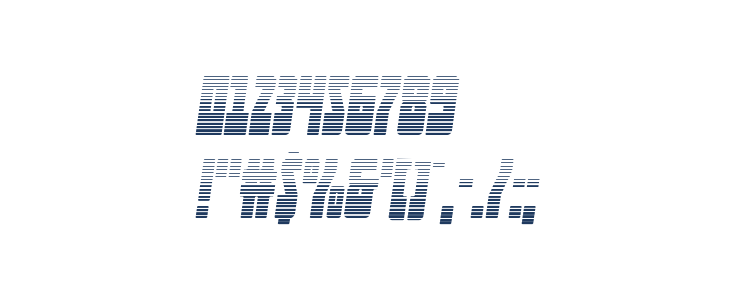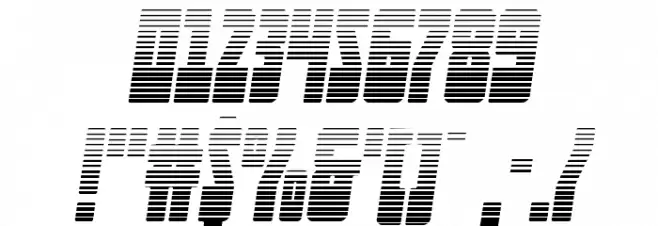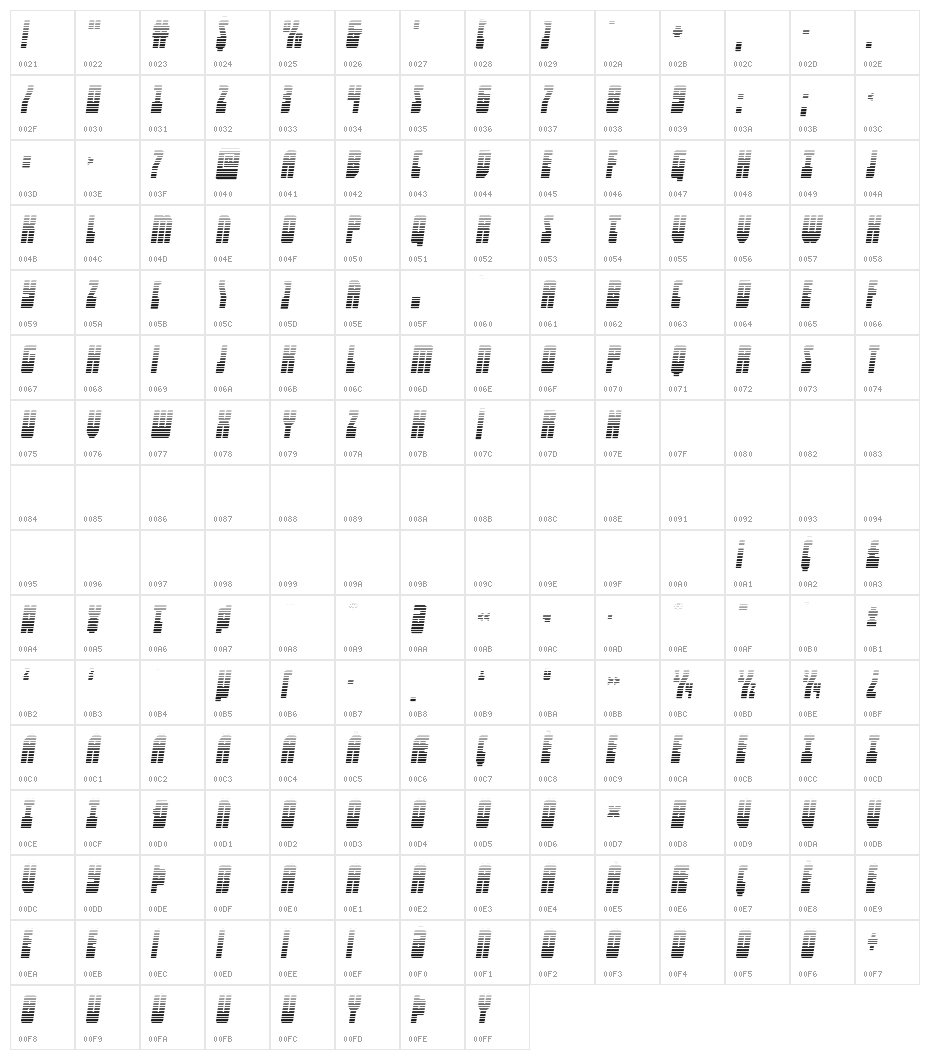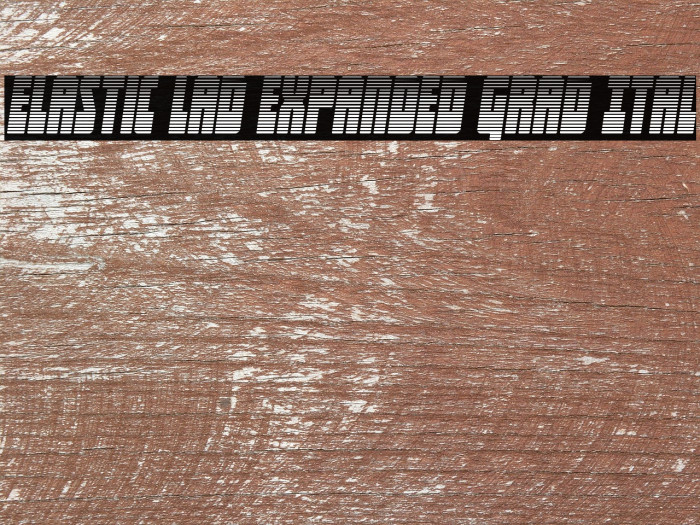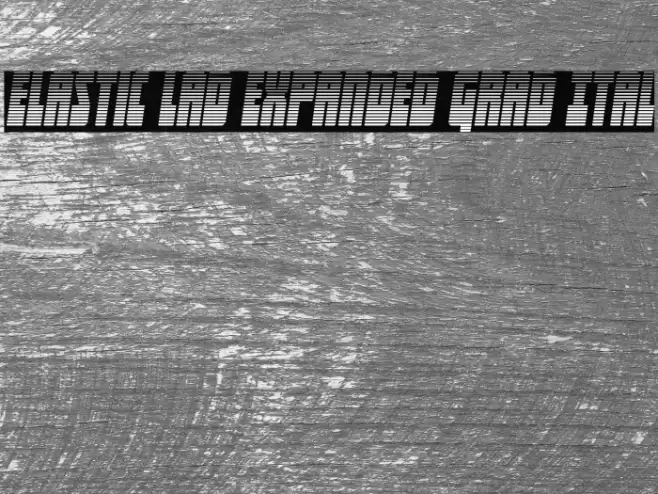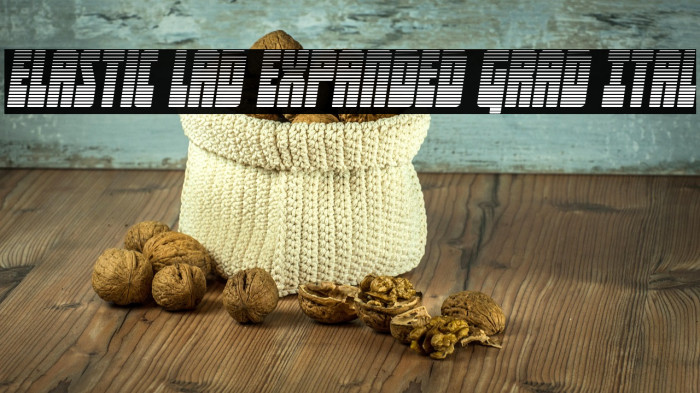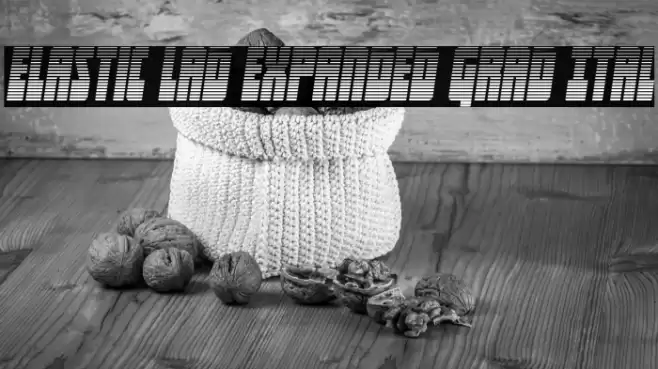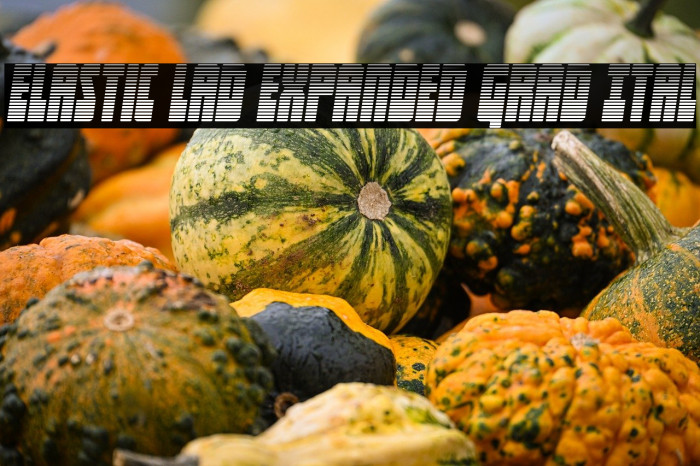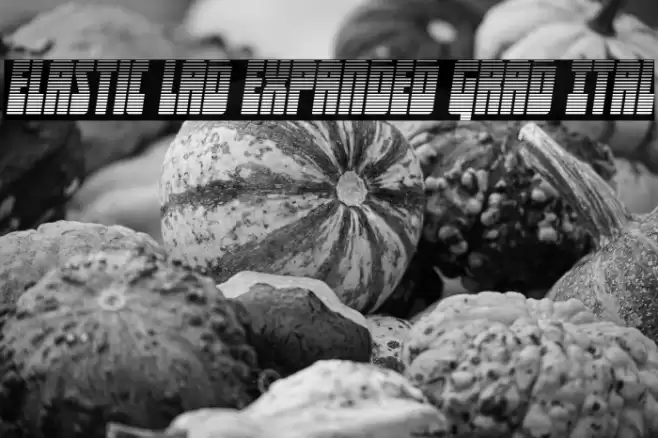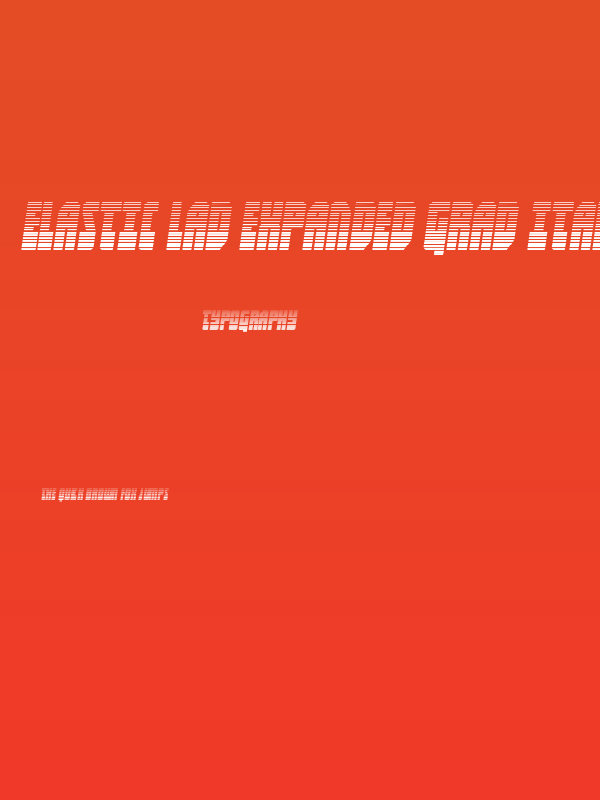
Elastic Lad Expanded Grad Ital Font
Elastic Lad Expanded Grad Ital Description
This font features a bold, expanded style with a distinct gradient effect that creates a sense of depth and movement. The italicized slant adds a dynamic and modern touch, making it stand out. Each character is composed of horizontal lines that vary in thickness, contributing to a high contrast appearance. The wide letterforms and unique design make it suitable for attention-grabbing headlines and creative projects. The font's playful yet structured look is ideal for projects that require a bold statement.
| Proposed Projects | Ideal for posters, logos, and branding materials that need a bold and modern aesthetic. |